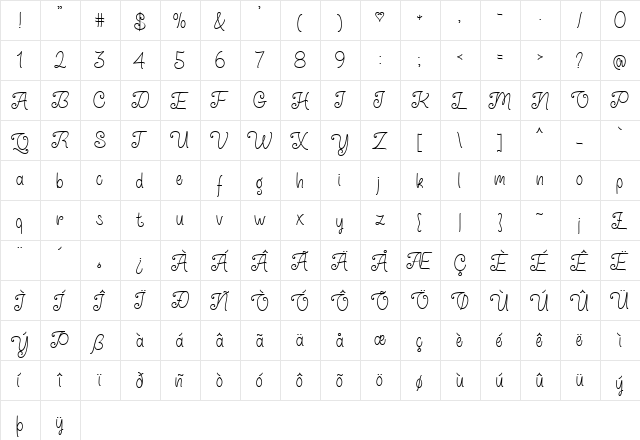
Qtie Script Regular
Design Context for Qtie Script Typeface
Qtie Script flows with the natural rhythm of handwritten lettering, making it ideal for designs that call for warmth and personal expression.
Font Pairing: Combine Qtie Script with a simple geometric sans for maximum contrast — the tension between flowing curves and clean structure is a classic typographic pairing.
Pro Tip: Pair Qtie Script with a clean sans-serif for supporting text. The contrast between fluid script and geometric structure creates an elegant typographic hierarchy.